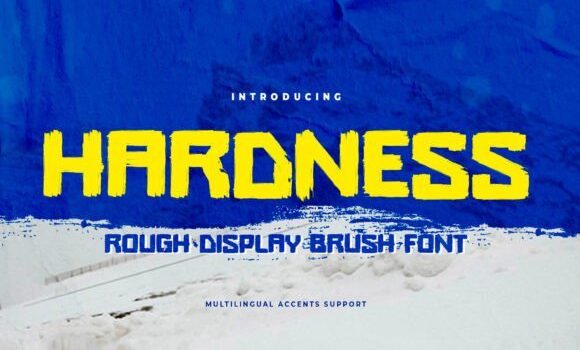
Hardness Font – Free Download Introduction to Hardness Font Hardness is a Rough Display Brush Font featuring a natural and classy style with clear, dramatic movement. 📸 Preview Gallery 6 images 📌 Product Name Hardness Font 👤 Author Gassstype Studio